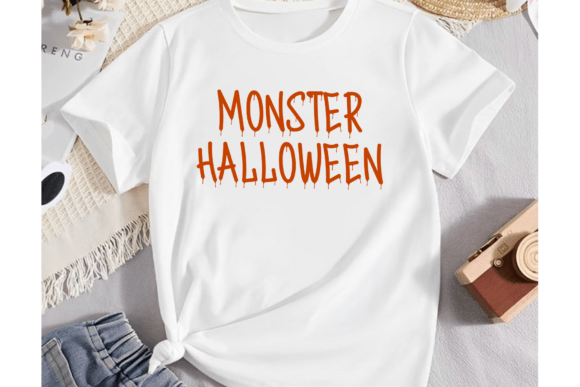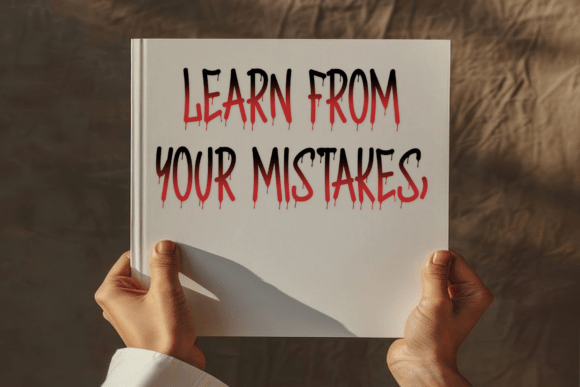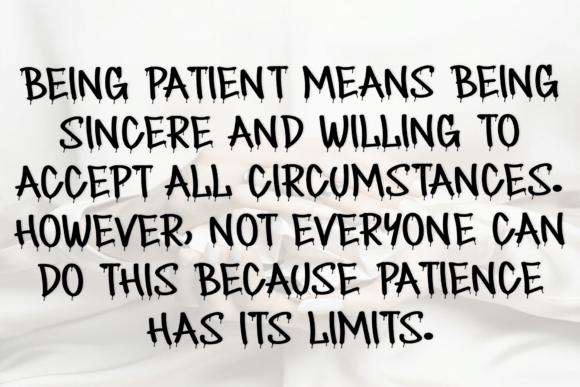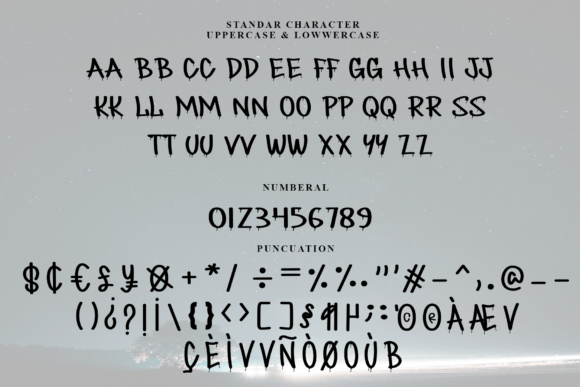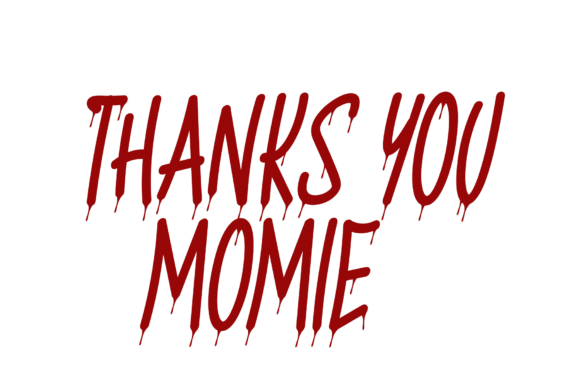
The Dreamlight Font: A Casual Handwritten Display Delight
Have you ever been in the middle of a design project, and suddenly, you’re stuck on finding the perfect font? I recall a recent experience where I was working on a whimsical craft project, and my client requested a font that was both casual and eye-catching. After scouring through numerous font libraries, I stumbled upon the Dreamlight font, and it instantly became the perfect fit. In this article, we’ll dive into the world of Dreamlight, exploring its features, uses, and alternatives.
A Personal Encounter with Dreamlight
I was working on a DIY craft project for a client who wanted a unique and playful touch. The project required a font that could convey a sense of friendliness and approachability. As I browsed through my font collection, I came across Dreamlight, a casual handwritten display font that caught my attention. I was immediately drawn to its effortless, hand-scribbled feel, and I knew it was the perfect fit for the project.
An Honest Review of Dreamlight
Here’s what I love about Dreamlight:
- ✨ Unique and quirky character set, perfect for creative projects
- ✅ Easy to read, even in smaller sizes
- 💫 Supports OpenType features, allowing for advanced typography
- 🎨 Highly versatile, suitable for various design applications, from crafts to digital media
However, I did notice a few minor quirks:
- 🤔 Limited kerning options, which might require manual adjustments
- ⚠️ Not ideal for body text or lengthy paragraphs, as it’s best suited for display purposes
- Experiment with OpenType features, such as glyphs and stylistic alternates, to add visual interest to your design.
The Story Behind Dreamlight
Dreamlight was designed with the intention of creating a font that felt both casual and creative. The designer aimed to craft a font that would be perfect for a variety of projects, from DIY crafts to digital media. With its unique character set and OpenType features, Dreamlight has become a versatile font suitable for designers, crafters, and creative hobbyists alike.
| Font Name | Dreamlight Font |
| Author | Preketek texs |
| What type of projects is Dreamlight best suited for? | Dreamlight is ideal for creative projects, such as DIY crafts, digital media, and design applications where a casual, handwritten feel is desired. |
| Does Dreamlight support OpenType features? | Yes, Dreamlight supports OpenType features, including glyphs and stylistic alternates. |